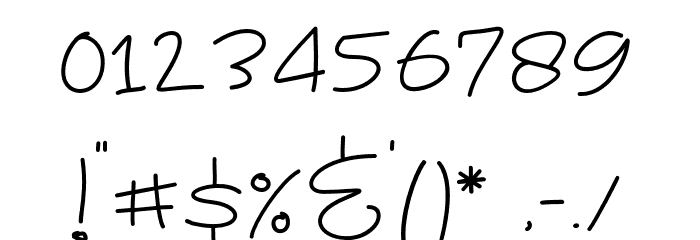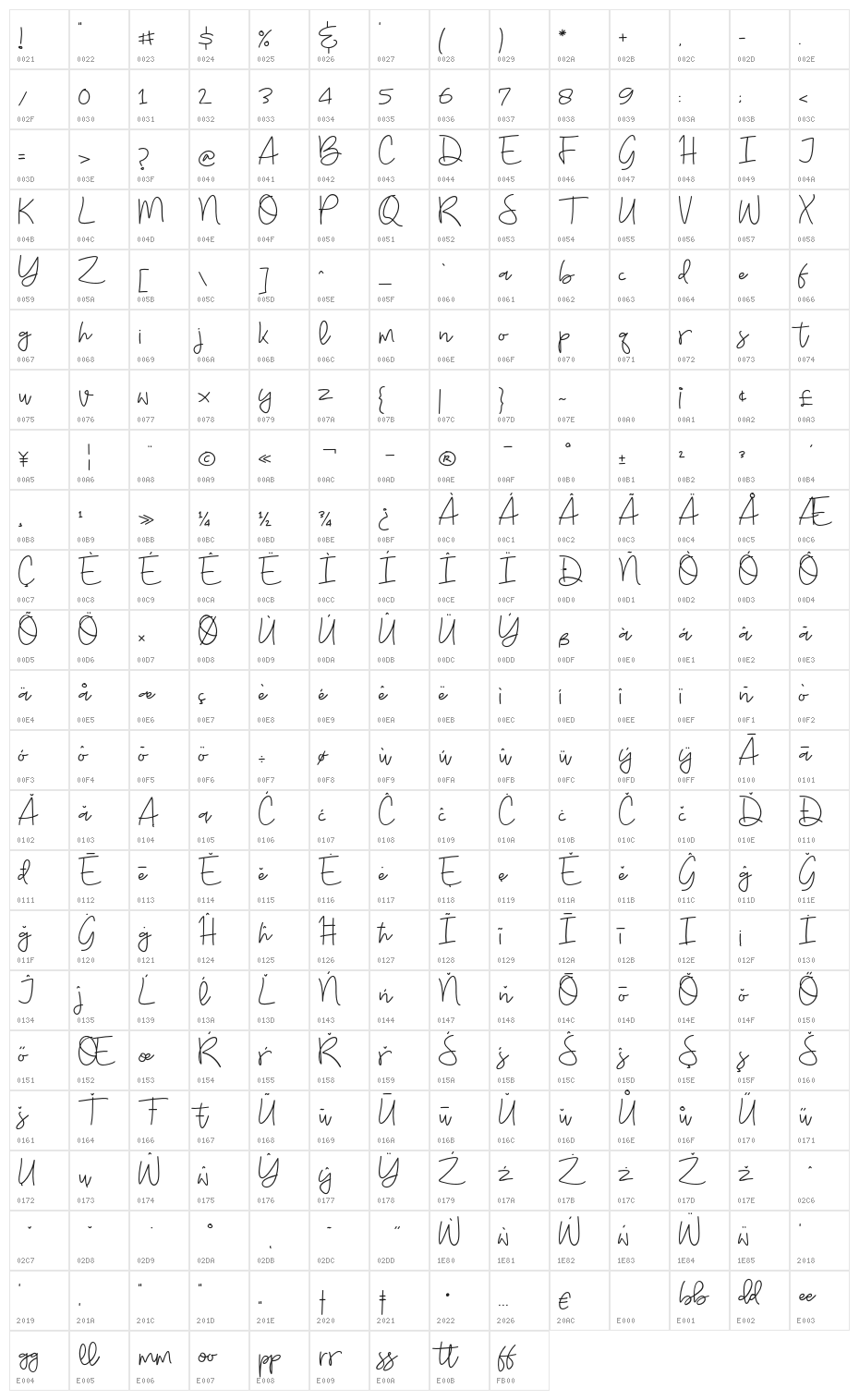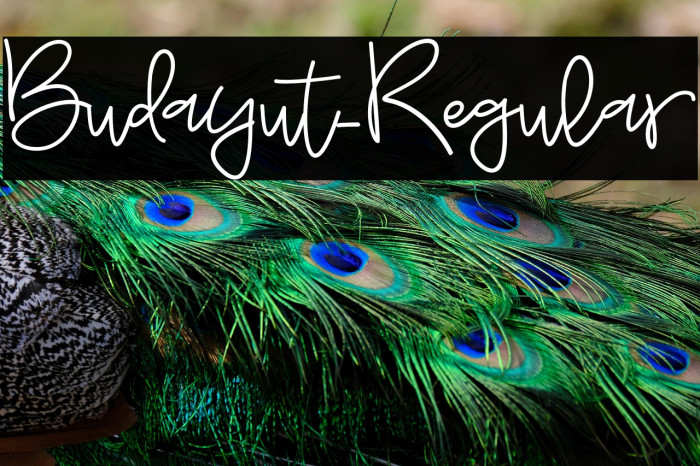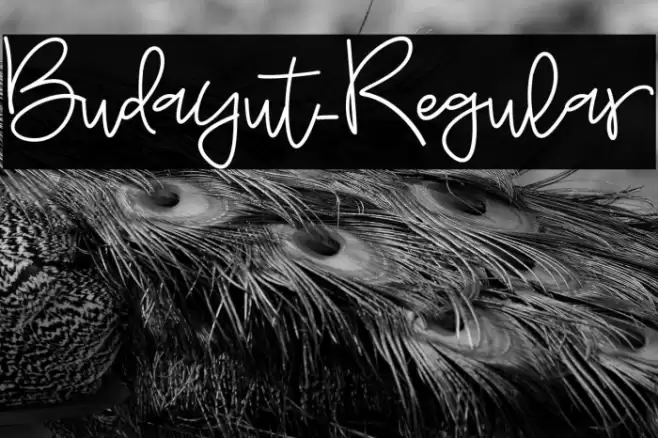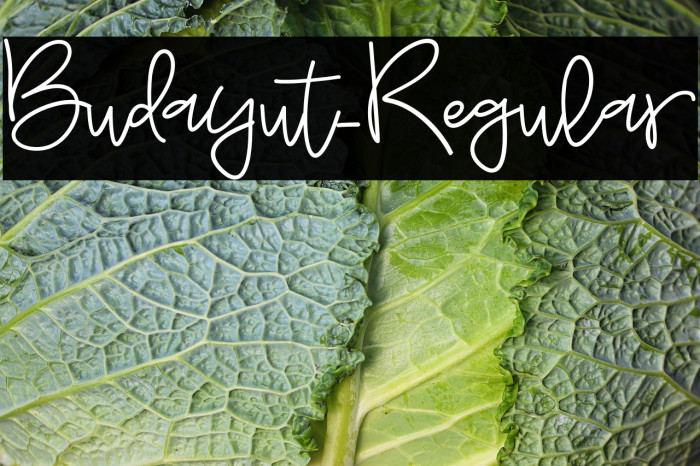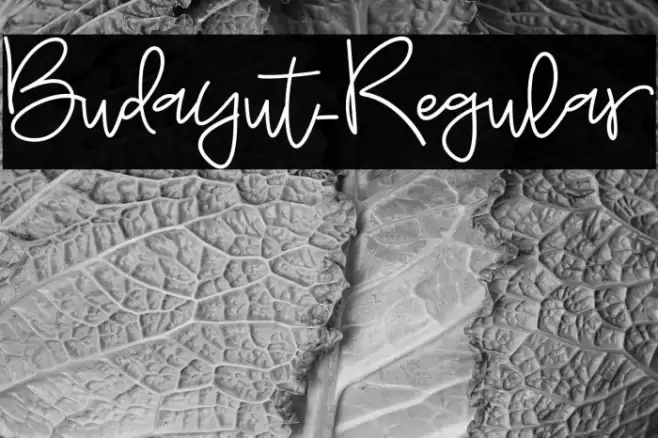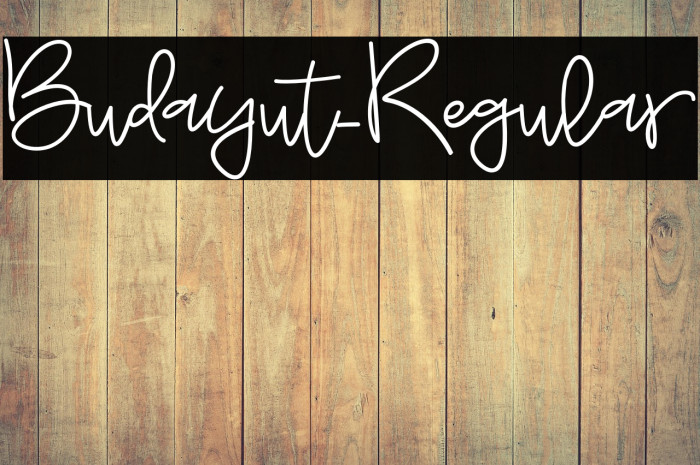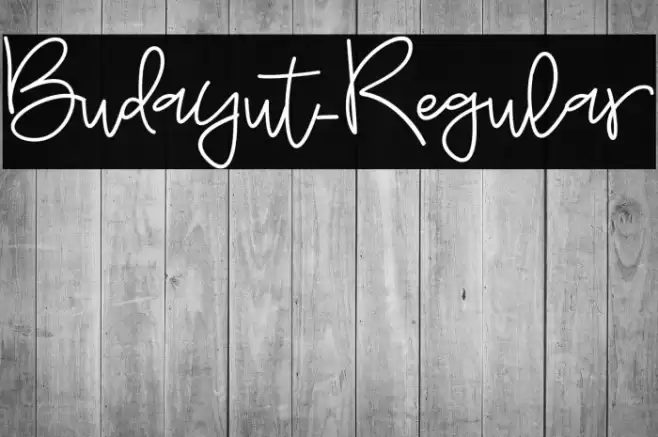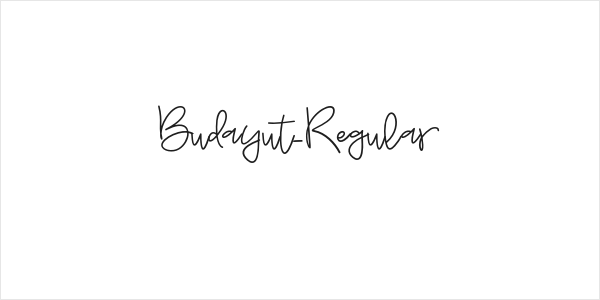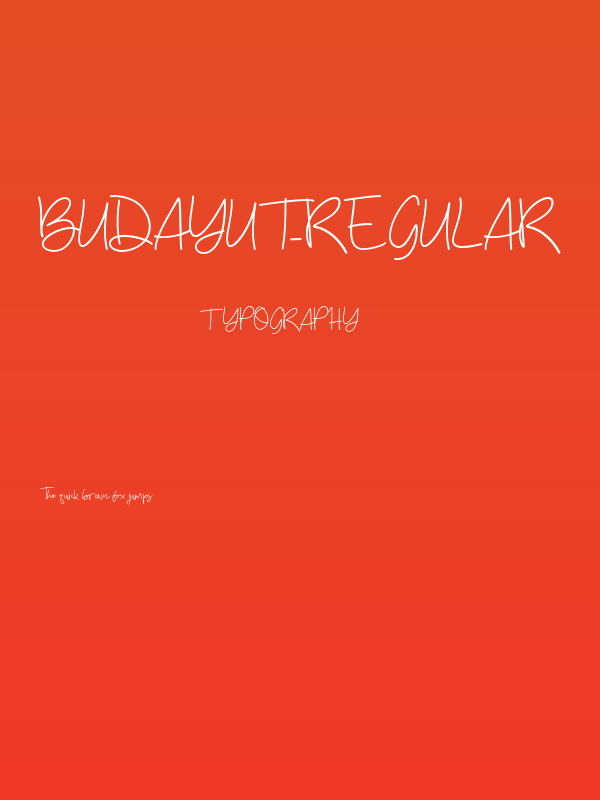
Budayut-Regular Font
Budayut-Regular Description
This font exhibits a playful and casual handwritten style, characterized by its fluid and organic strokes. The letters are slightly slanted, giving a dynamic and lively appearance. The uppercase and lowercase letters maintain a consistent style, with rounded edges and a slight bounce in the baseline, adding to its informal charm. The numerals and special characters are crafted with the same whimsical touch, ensuring a cohesive look across all glyphs. This font's overall aesthetic is approachable and friendly, making it suitable for projects that require a personal and human touch.